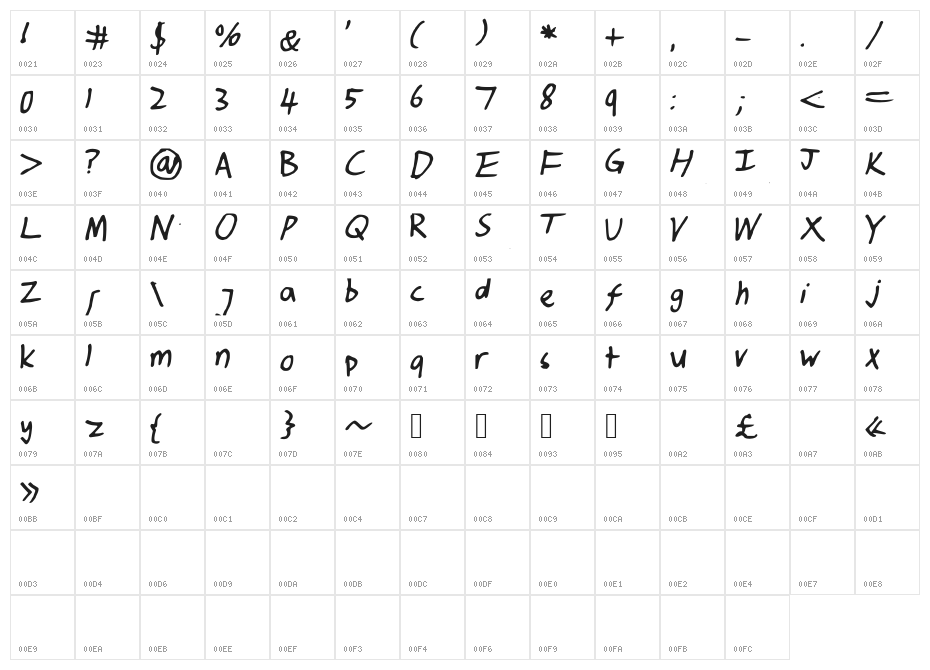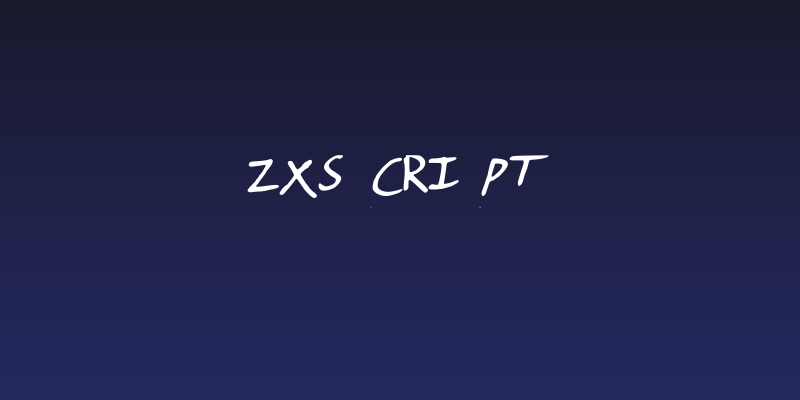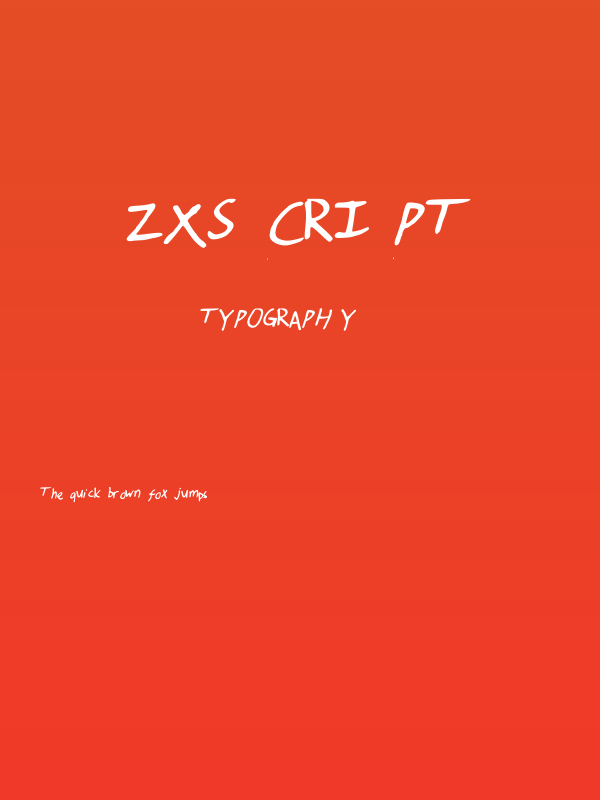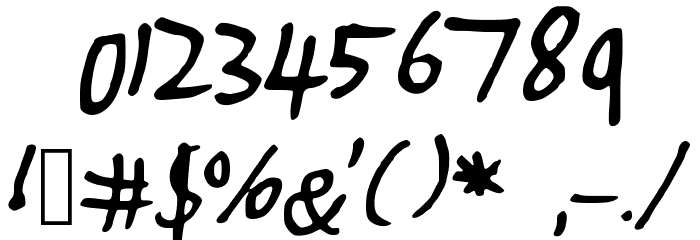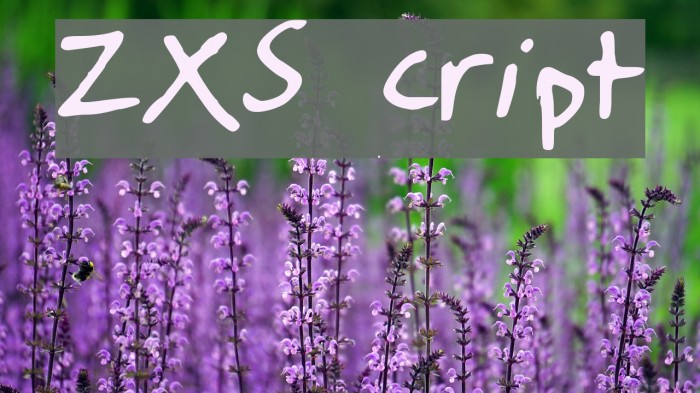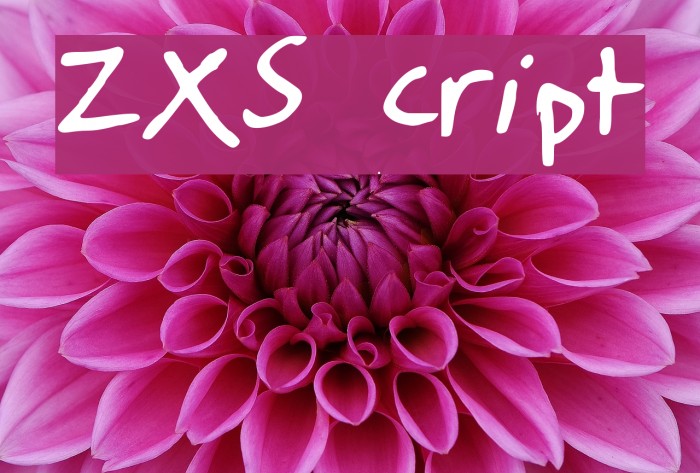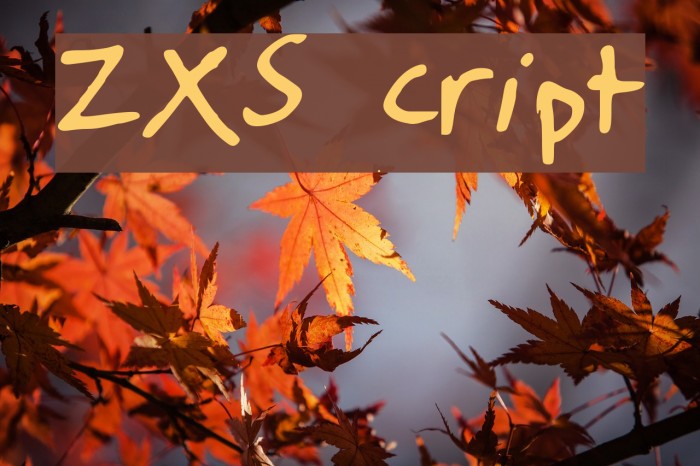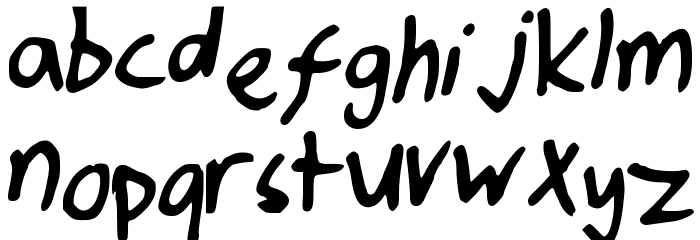
ZXScript Font
ZXScript Description
This font exhibits a casual, handwritten style with a playful and informal appearance. The letters are slightly slanted, giving it a dynamic and lively feel. The strokes are uneven, adding to the handwritten charm, and the characters are well-spaced, ensuring readability. The uppercase letters are bold and prominent, while the lowercase letters maintain a consistent flow. The numerals are clear and distinct, matching the overall style. Special characters are creatively designed, complementing the font's whimsical nature.